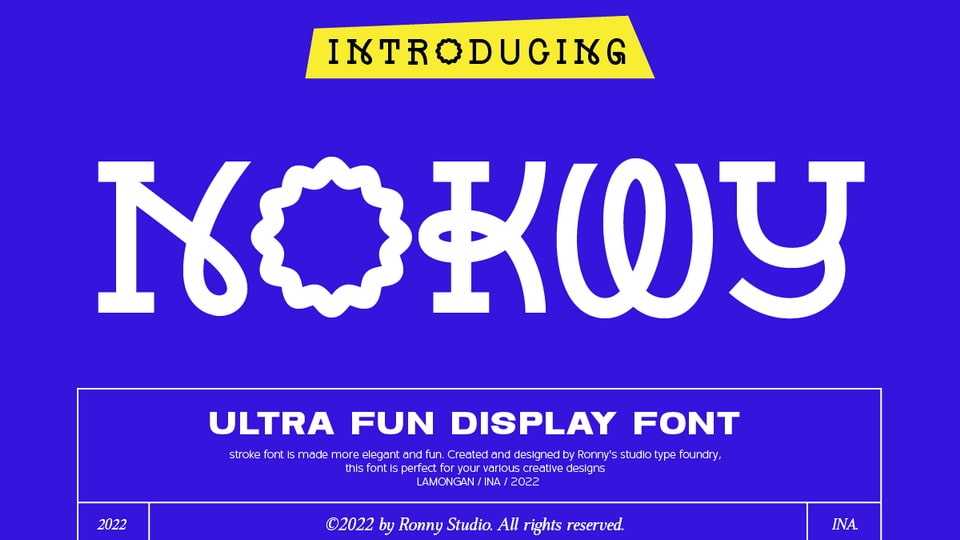
Download Nokwy font, a unique display typeface perfect for contemporary display types and branding. Nokwy font has characters that are attractive enough to impact readers and make them smile.